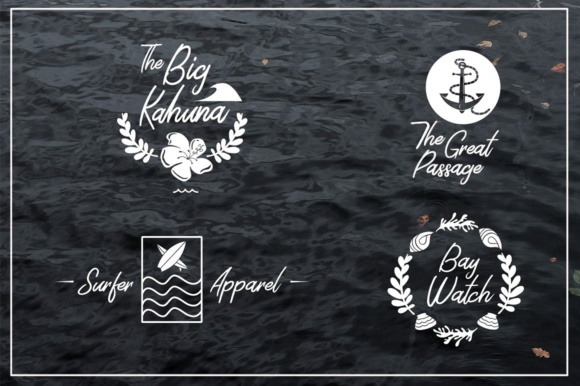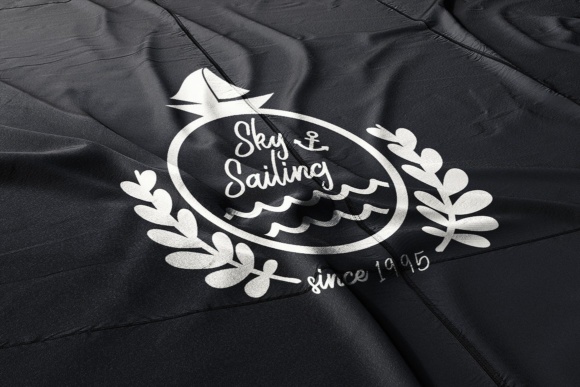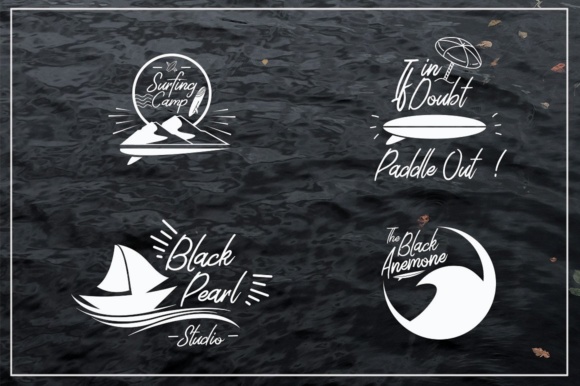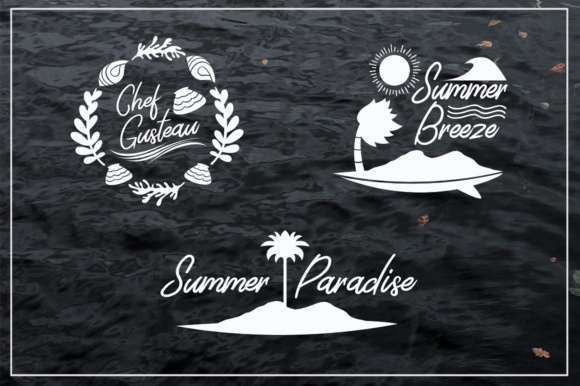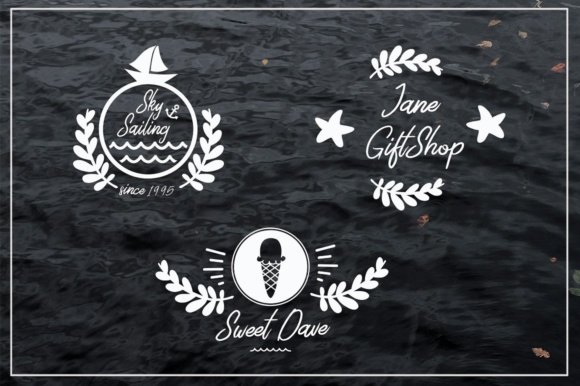
Harmonic Script Font – Free Download
Introduction to Harmonic Script Font
The Harmonic Script is a modern bold script font.
| 👤 Author | Rustype |
Harmonic can be used for logotype, website headers, fashion designs, Shop branding and much more .
Harmonic Script Font offers exceptional quality and versatility, making it a valuable addition to your design toolkit. Whether you’re creating for personal projects or commercial use, Harmonic Script Font delivers professional results.